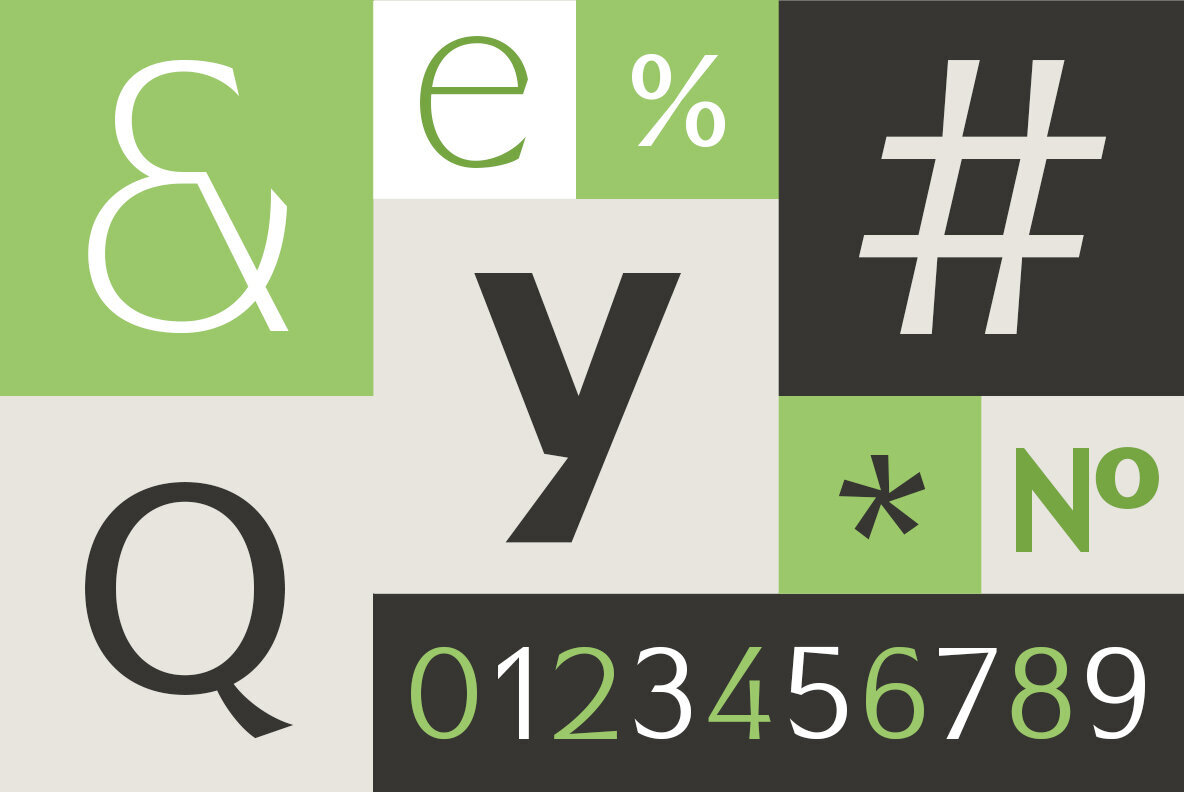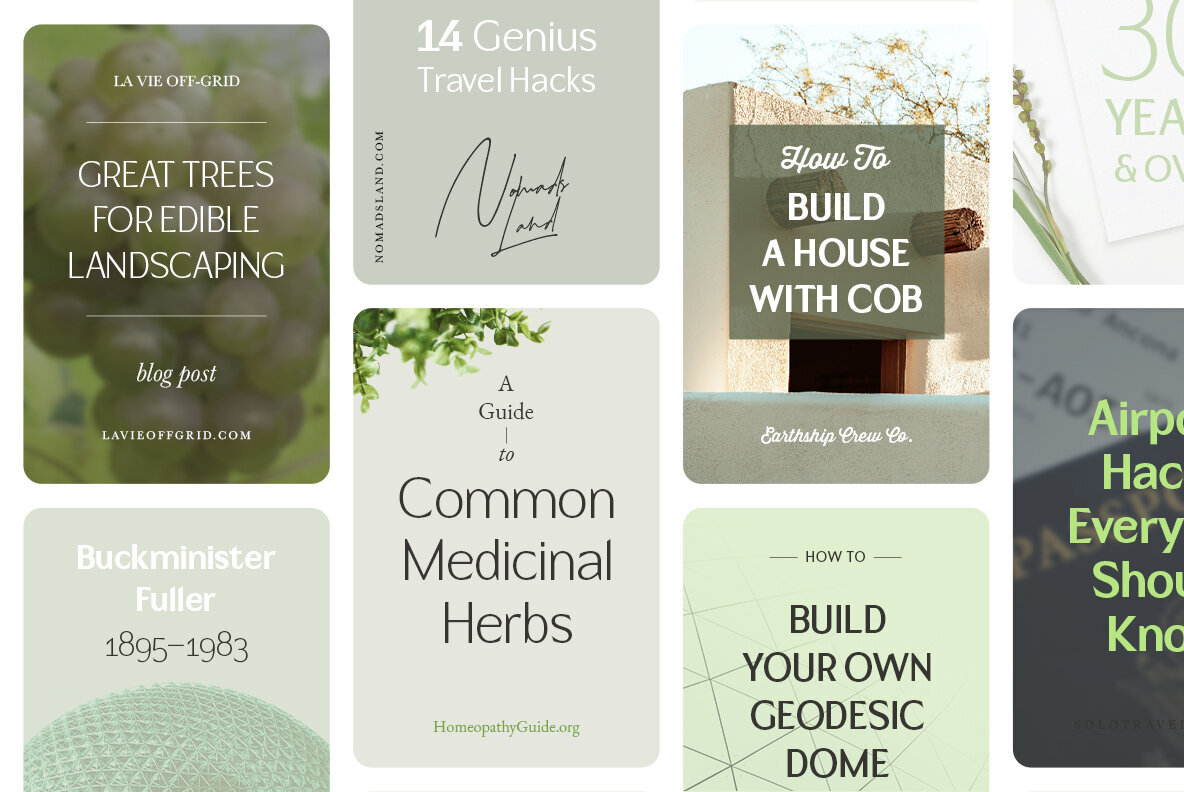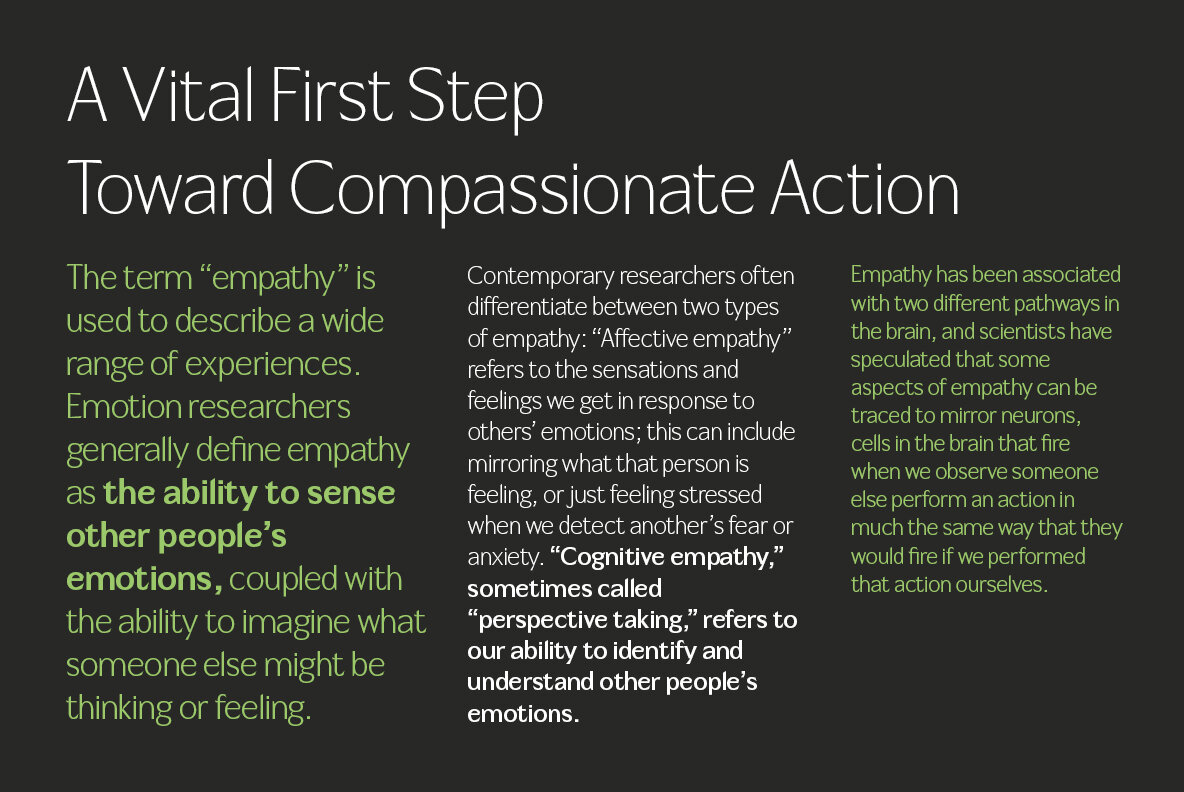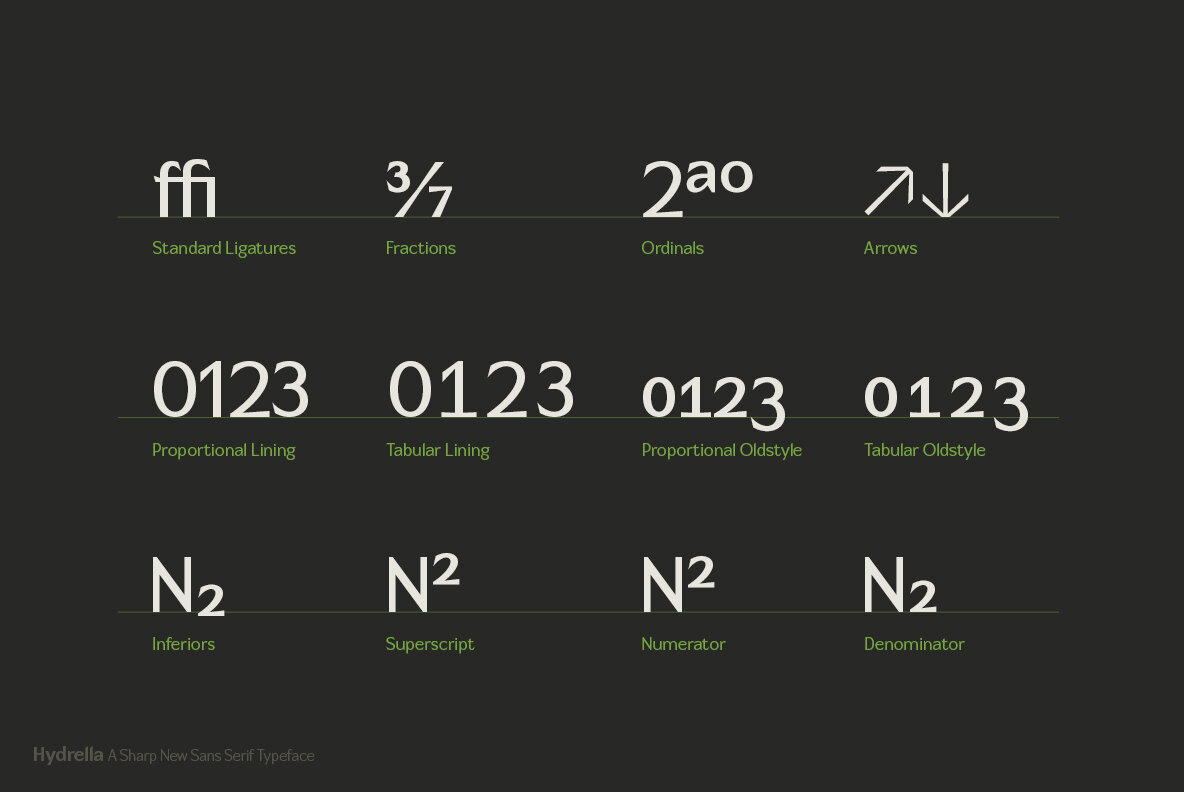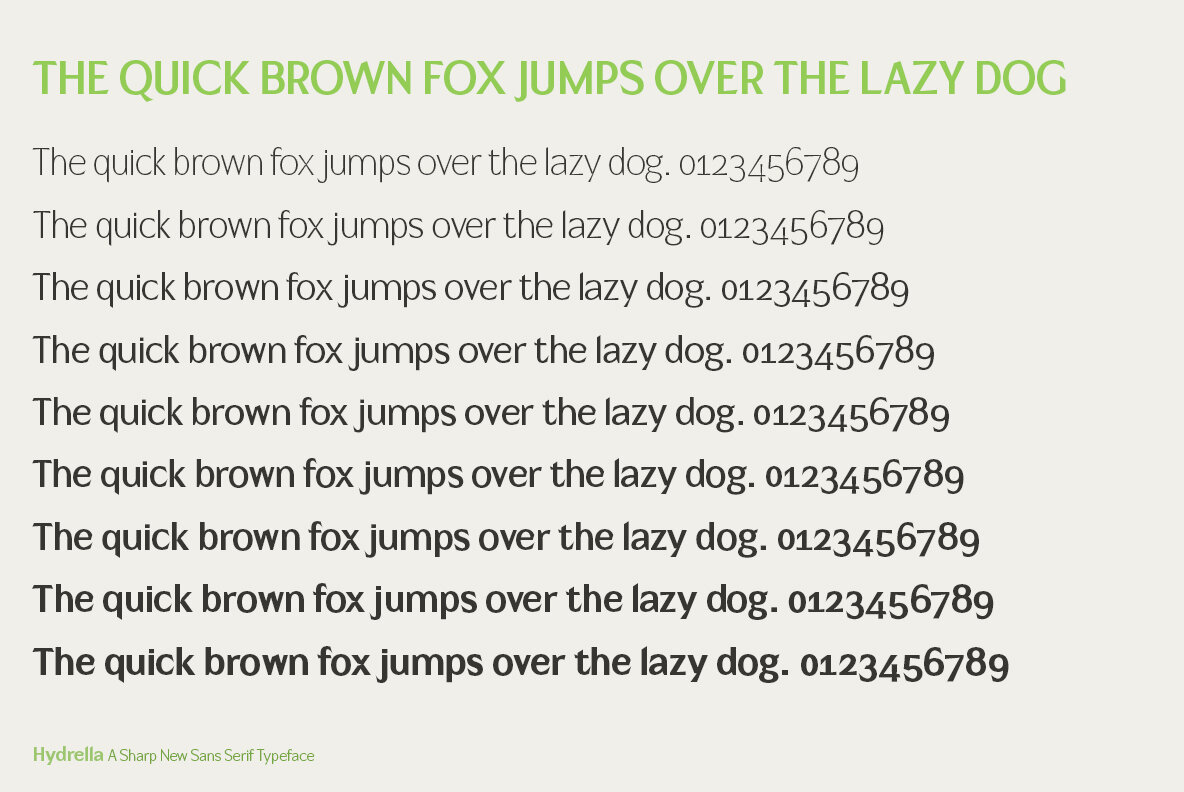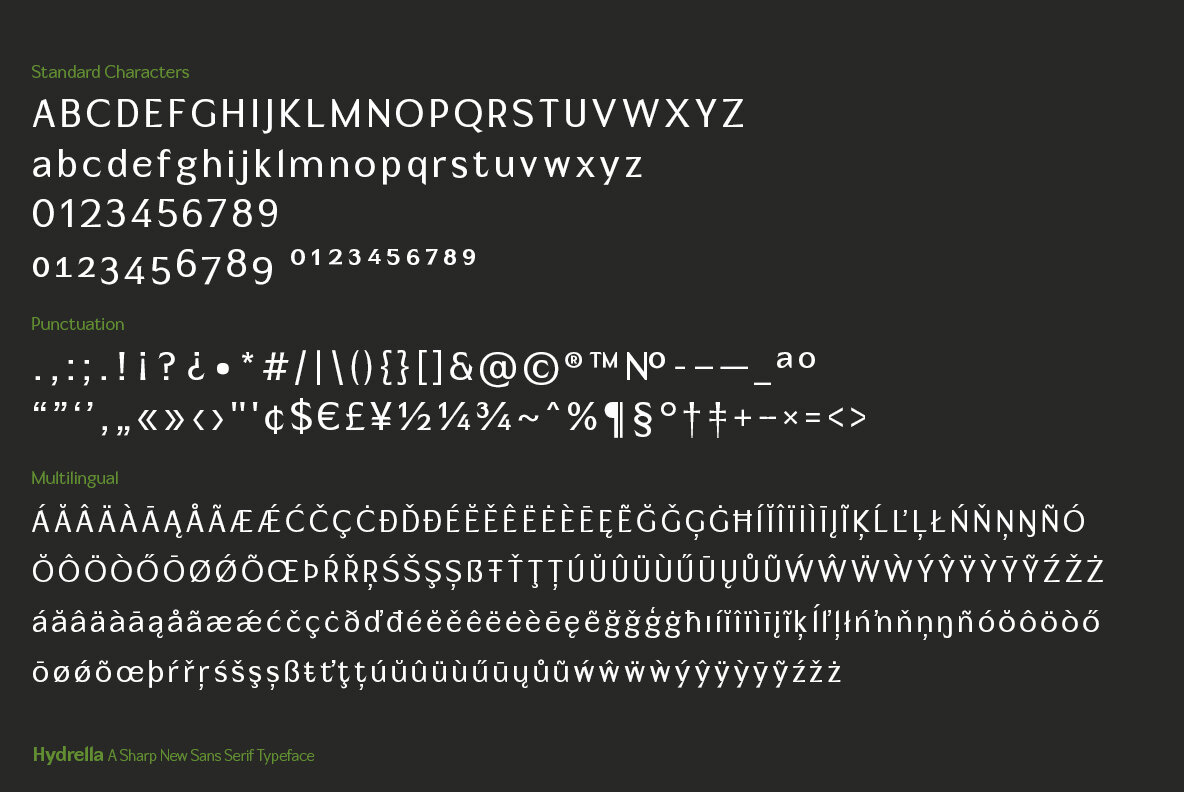
Hydrella Font
Hydrella is a modern sans serif font that boasts sharp, unique features and moderate contrast. With its easily distinguishable attributes, this typeface adds a fresh new look without overwhelming your design. Available in nine weights, Hydrella is versatile and works well as both a display typeface and for smaller text sizes. Enhance your projects with the clean and contemporary aesthetic of Hydrella, perfect for creating a professional and balanced design.